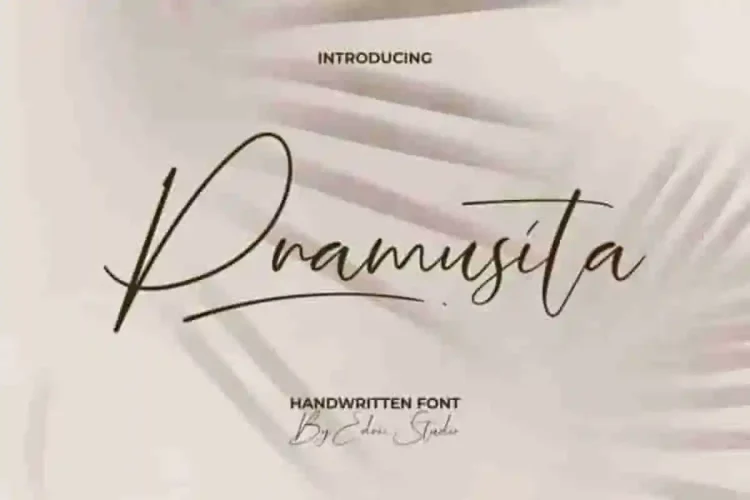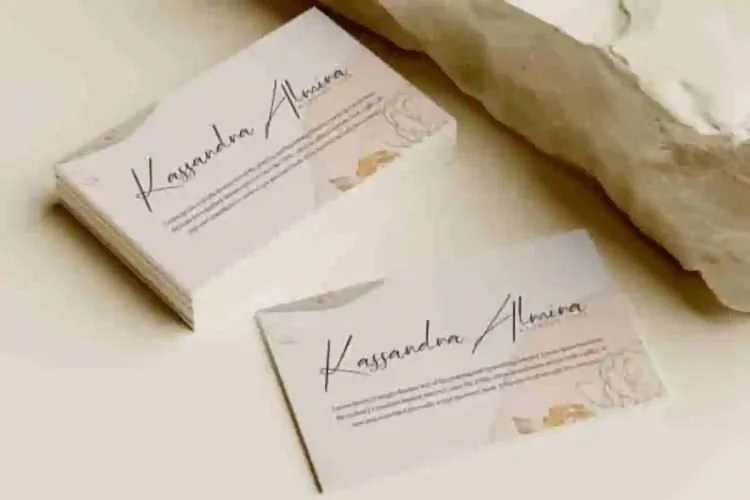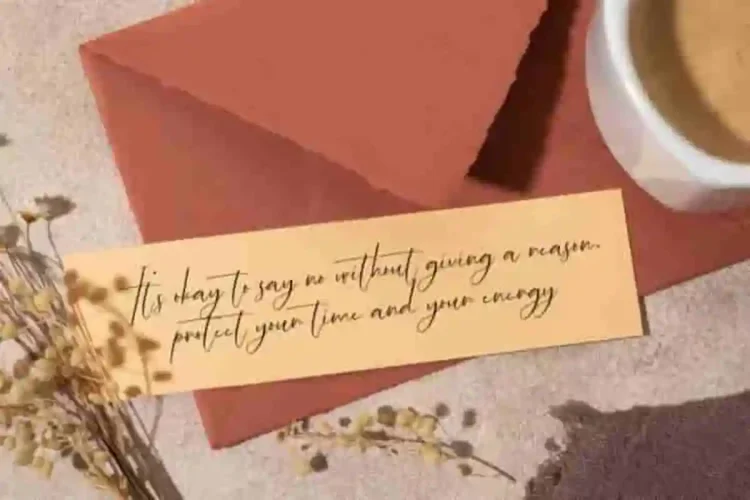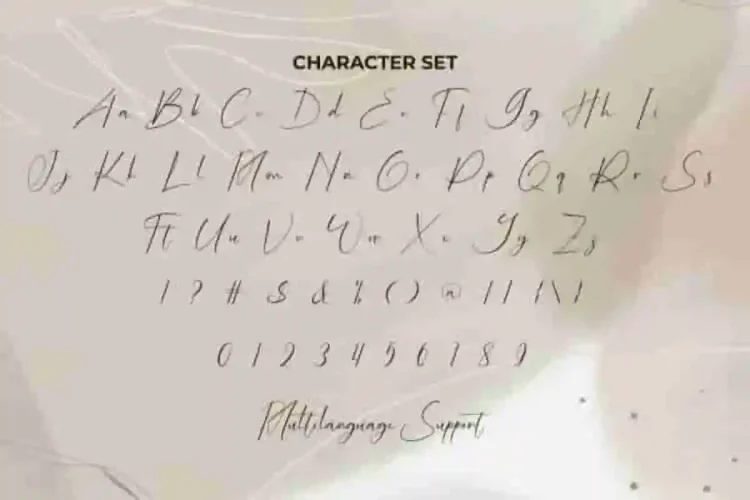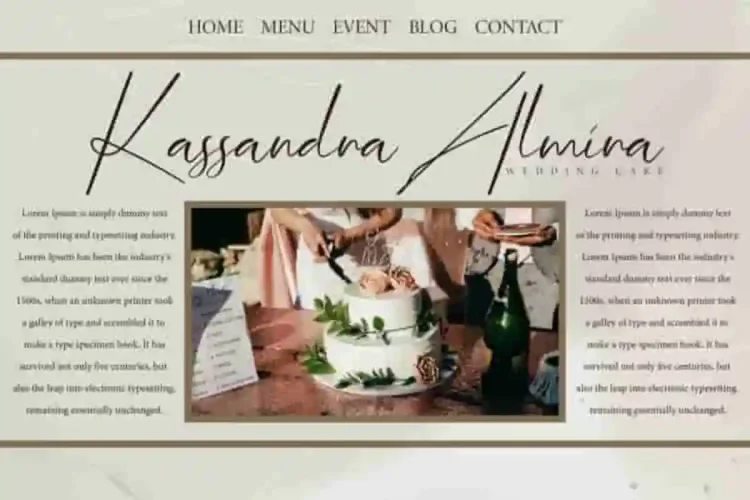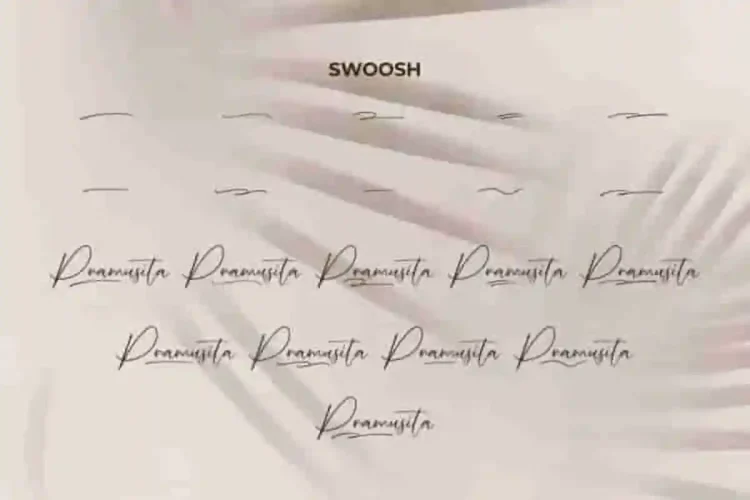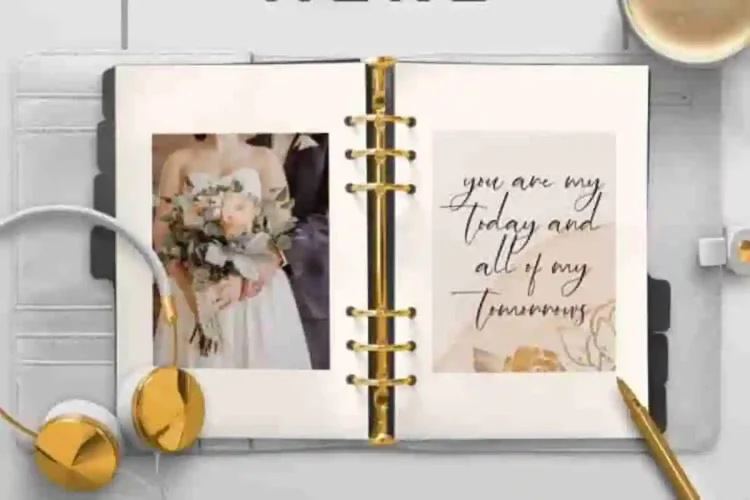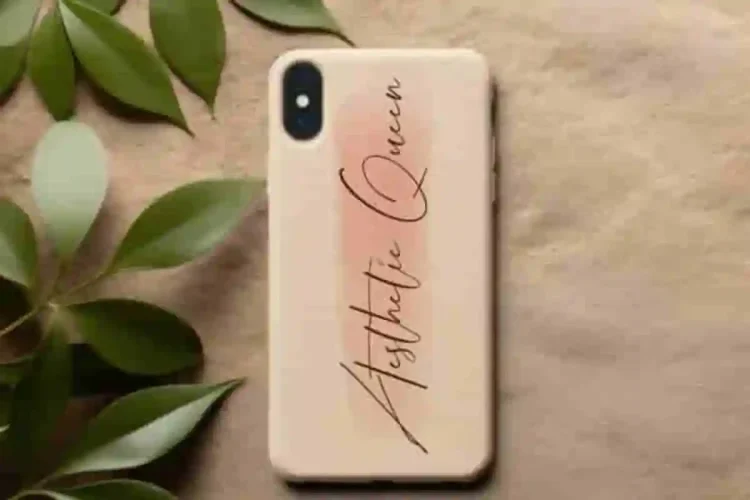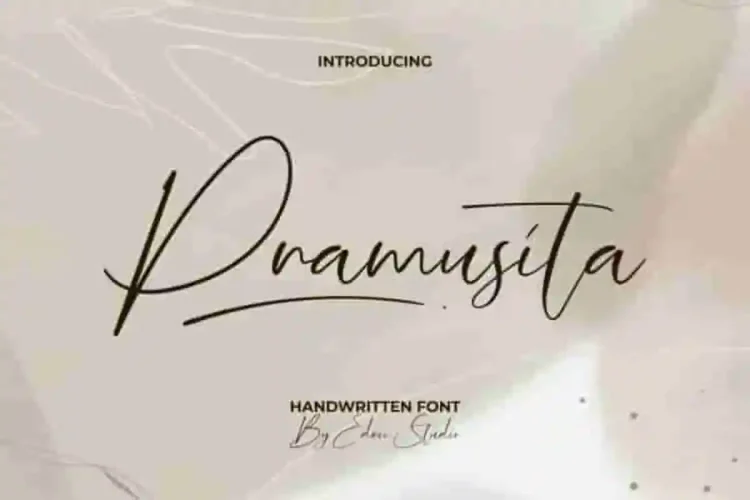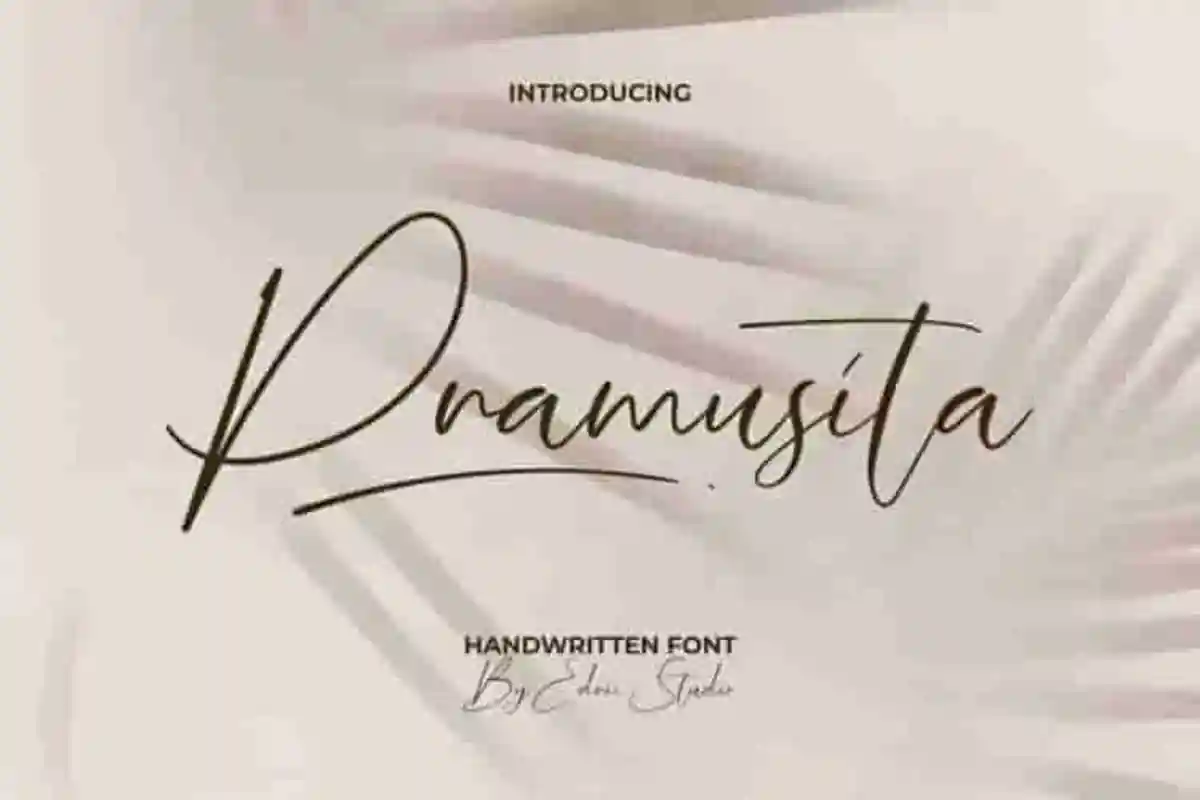
Pramusita Handwritting Font is an elegant modern handwritten font. Its casual appeal makes it friendly, easy to read, and ultimately versatile. With its casual yet graceful style, Pramusita Font is versatile, easy to read, and full of charm—perfect for both personal and professional use.
Pramusita Handwritting Script Font stand out is its stunning swoosh and natural handwritten flow. Whether you’re creating logos, wedding invitations, greeting cards, branding, blogs, or product packaging, this handwritten font delivers a timeless and personal touch. It’s sure to look great in any context, whether used on a busy background or as a standalone title! Get creative without limits with this font that will add a personal touch to any project, advertising, bakery, event organizer, home furniture, photography, restaurant, spa salon, sweetshop, wedding, etc.
Pramusita Font also supports multilingual characters which are ready to use either on Windows or Mac machines with a simple installation. In order to use alternative characters, usually we just need to block the end letters and select alternative letters on glyphs option. Combine different characters for a bespoke, handcrafted feel. It’s tested to work well in the Adobe Apps (Illustrator, Adobe InDesign, Adobe Photoshop) even work on Microsoft Word. All of these characters are available through the glyph panel, moreover each letter has its own unicode (PUA) so you can access all the characters easily.